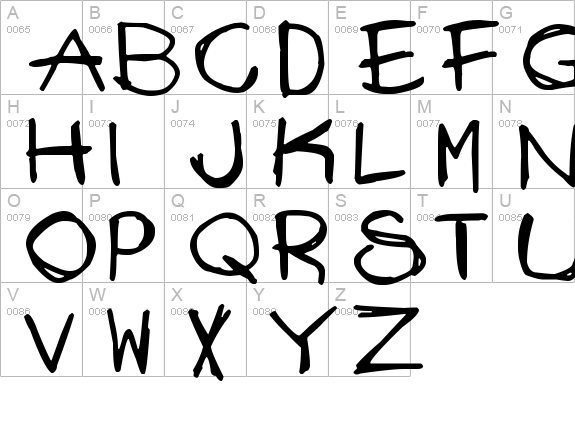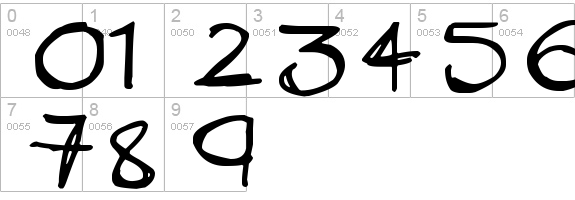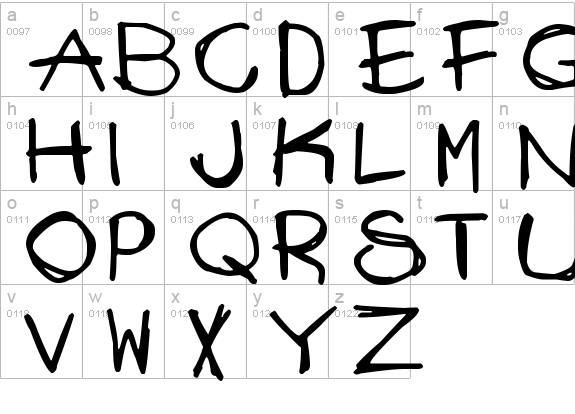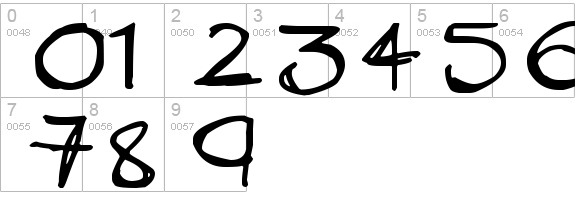
Mad Stick Brush Font Details
Mad Stick Brush is a free for personal use font in the Script > Handwritten category, designed by Darrell Flood. It has been downloaded 88 times and is available for Windows, Mac and Linux.
Mad Stick Brush font is a unique and creative typeface that adds a touch of whimsy and energy to any design. With its hand-drawn look and bold strokes, this font is perfect for making a statement and standing out from the crowd. The playful and dynamic nature of Mad Stick Brush font makes it ideal for projects that require a fun and lively touch.